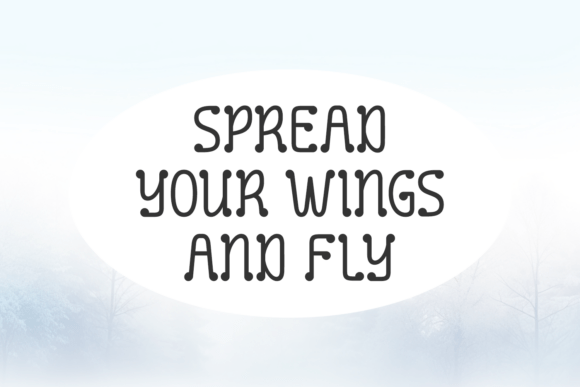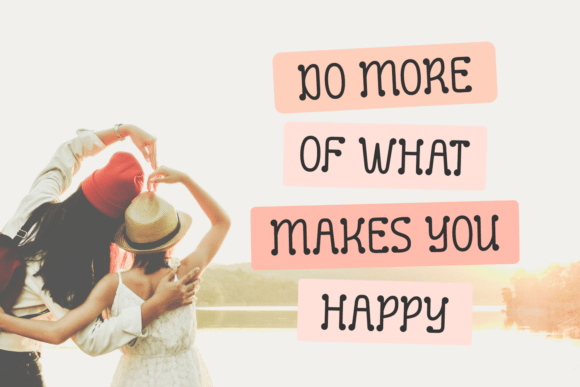
Introducing Butterfly Valentine Font: The Ultimate Display Font for Fun and Youthful Designs
Are you tired of using the same old fonts for your designs? Look no further! Butterfly Valentine Font is here to add a touch of whimsy and playfulness to your creations. This delightful display font is perfect for designers and crafters who want to infuse their work with a sense of fun and youthful energy.
The Unique Charm of Butterfly Valentine Font
Butterfly Valentine Font boasts soft, rounded edges that give every letter a friendly and approachable feel. Its unique charm lies in its ability to convey a sense of lightheartedness and joy, making it perfect for designs that require a playful touch. Whether you’re creating love cards, cheerful branding, sweet logos, or printable templates, this font is sure to elevate your work.
Endless Design Possibilities with Butterfly Valentine Font
The versatility of Butterfly Valentine Font is one of its most significant advantages. You can use it to create a wide range of designs, including:
- Love cards and Valentine’s Day-themed designs
- Cheerful branding and logos for kids’ products or services
- Printable templates for parties, events, or activities
- Impactful social media graphics that grab attention
No matter the topic or theme, Butterfly Valentine Font has the potential to transform your designs and make them stand out from the crowd.
Why Butterfly Valentine Font is a Must-Have for Designers and Crafters
Butterfly Valentine Font is more than just a font – it’s an asset to your design library. Here are a few reasons why:
- Instant Recognition: The font’s unique and playful design makes it instantly recognizable, adding a touch of personality to your work.
- Emotional Connection: The friendly and approachable feel of the font helps create an emotional connection with your audience, making your designs more relatable and engaging.
- Versatility: As mentioned earlier, Butterfly Valentine Font can be used for a wide range of designs, making it a valuable addition to your font collection.
- Easy to Read: Despite its playful design, the font remains easy to read, ensuring that your message is conveyed clearly and effectively.
Tips for Getting the Most Out of Butterfly Valentine Font
To maximize the potential of Butterfly Valentine Font, here are a few design tips:
- Experiment with Colors: The font’s playful design lends itself well to bright and bold colors. Don’t be afraid to experiment and find the perfect color combination for your design.
- Mix and Match: Combine Butterfly Valentine Font with other fonts to create a unique and visually appealing design.
- Play with Size and Style: The font’s versatility means you can use it in various sizes and styles. Experiment with different sizes and styles to add emphasis and create visual interest.
Butterfly Valentine Font is a delightful display font that’s sure to bring a touch of fun and youthful energy to your designs. Its unique charm, versatility, and emotional connection make it a must-have for designers and crafters. Whether you’re creating love cards, cheerful branding, or social media graphics, this font is sure to elevate your work and make it stand out from the crowd. So why wait? Add Butterfly Valentine Font to your design library today and start creating!